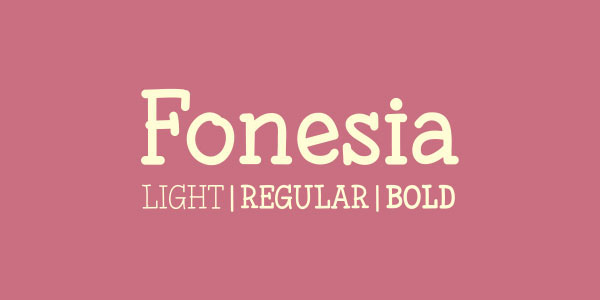
A few months ago, I launched a free font called Fonesia.
Natural impression was deliberately highlighted in this font. To further facilitate the creation, Fonesia family comes in three different variants: Light, Regular and Bold. For this initial release, it still carries a standard glyph: uppercase, lowercase, numbers, punctuation and some symbols. Fore hopefully be updated to be more complete to support other languages.